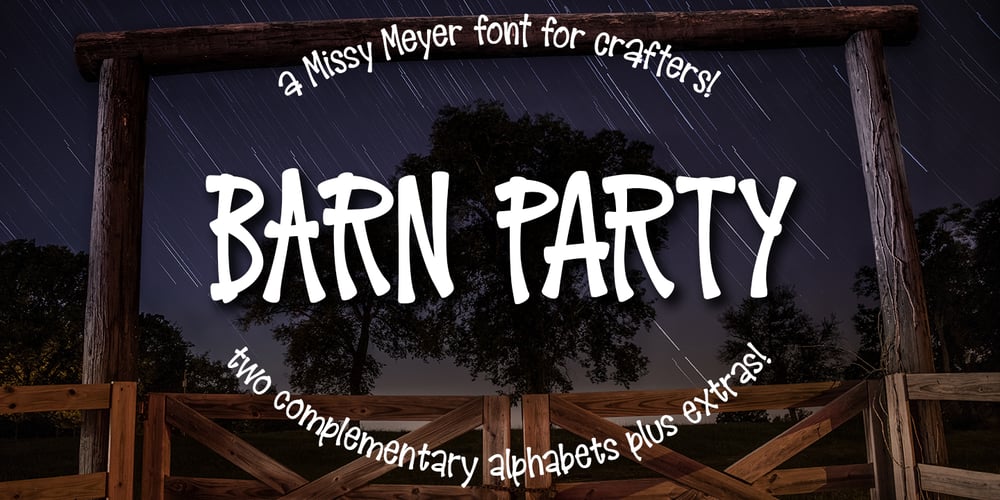
Barn Party Font Family was designed by Missy Meyer and published by Missy Meyer. Barn Party contains 1 styles and family package options. I’ll admit right off the bat here — I’ve never been to a party in a barn. I don’t even know if they still do barn dances and parties, or if that’s something out of the musical Oklahoma! or something. But this font gave me kind of a homey, rustic feel, so the name felt right! Like many of my fonts, this one has been refined with crafters in mind — smoothed curves and reduced nodes, for easy cutting and printing. It’s also packed with over 600 characters total! The usual alphabet, numbers, and punctuation, plus 30 double-letter ligatures, over 300 diacritics, and a full second alphabet coded in as Stylistic Alternates. Enjoy!